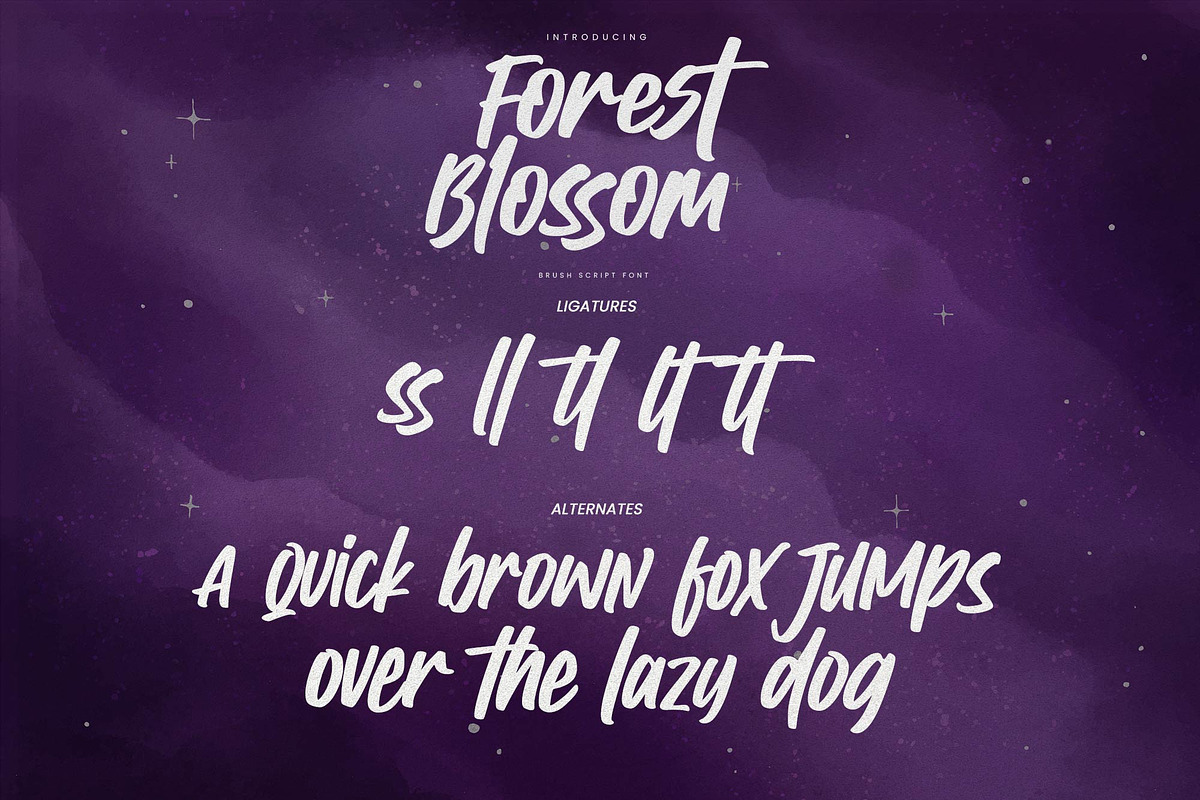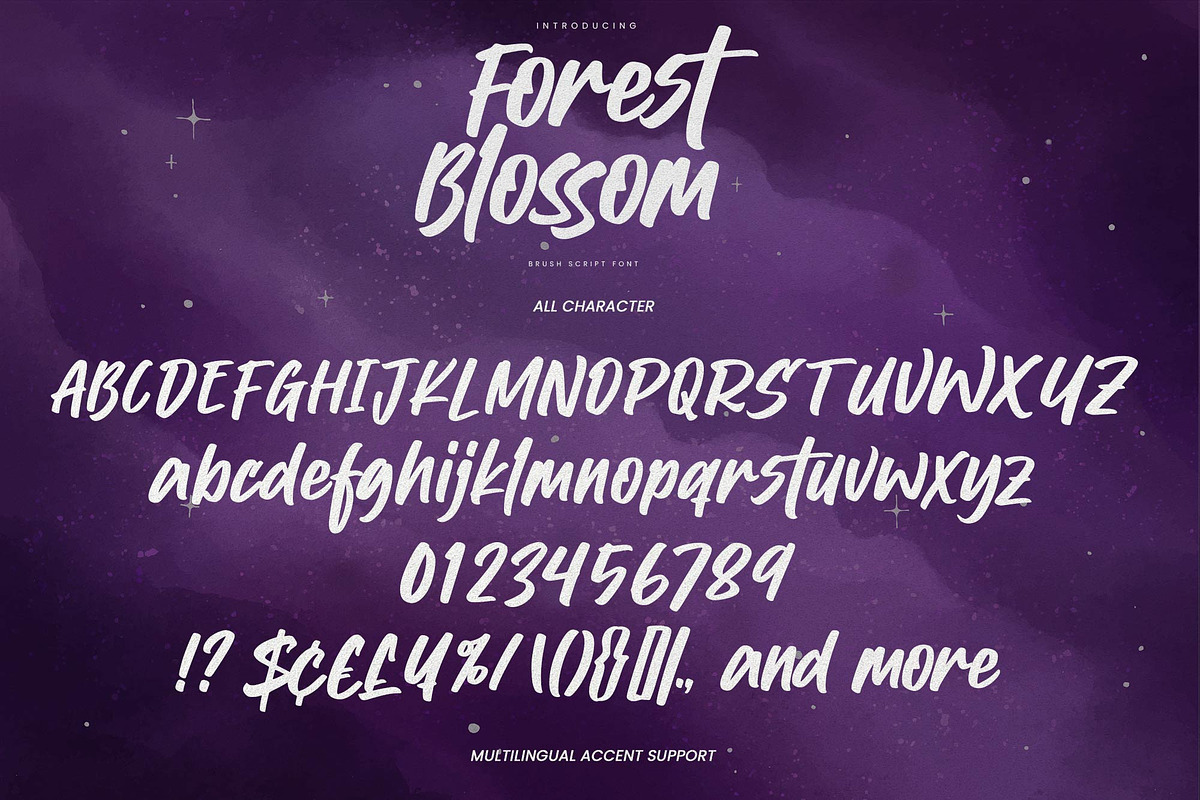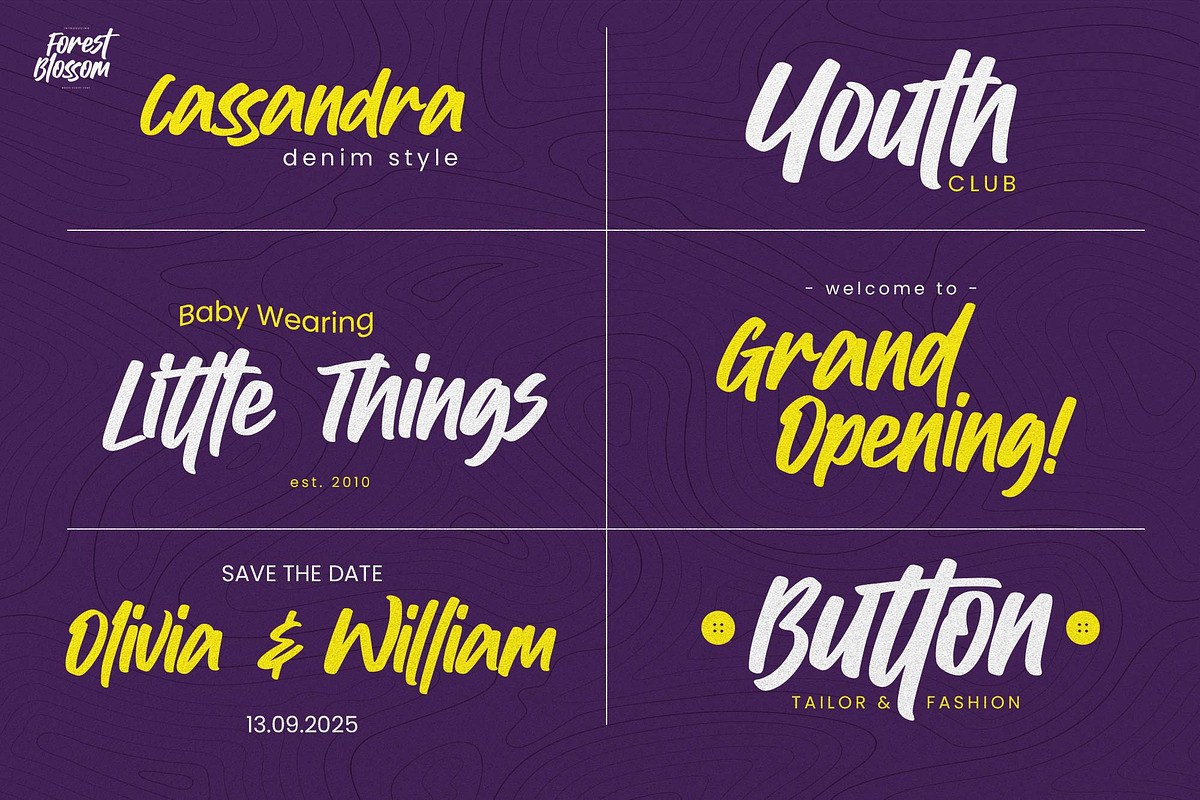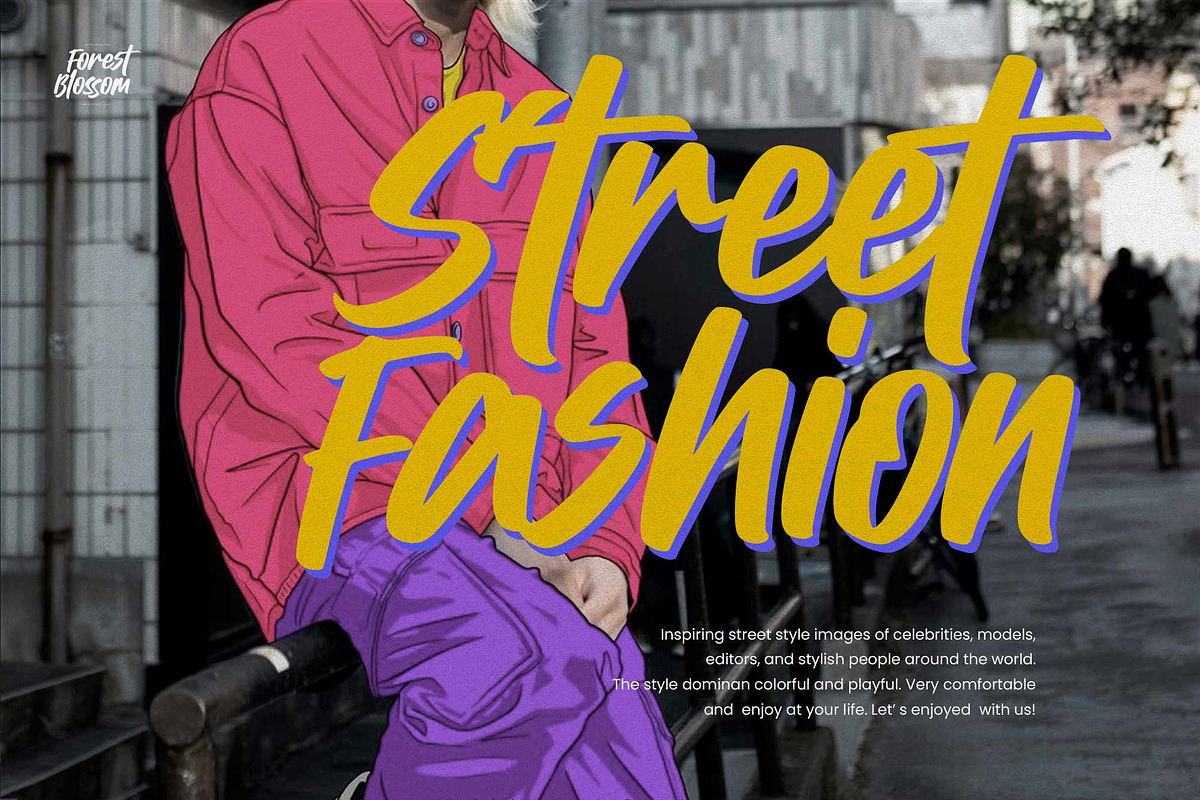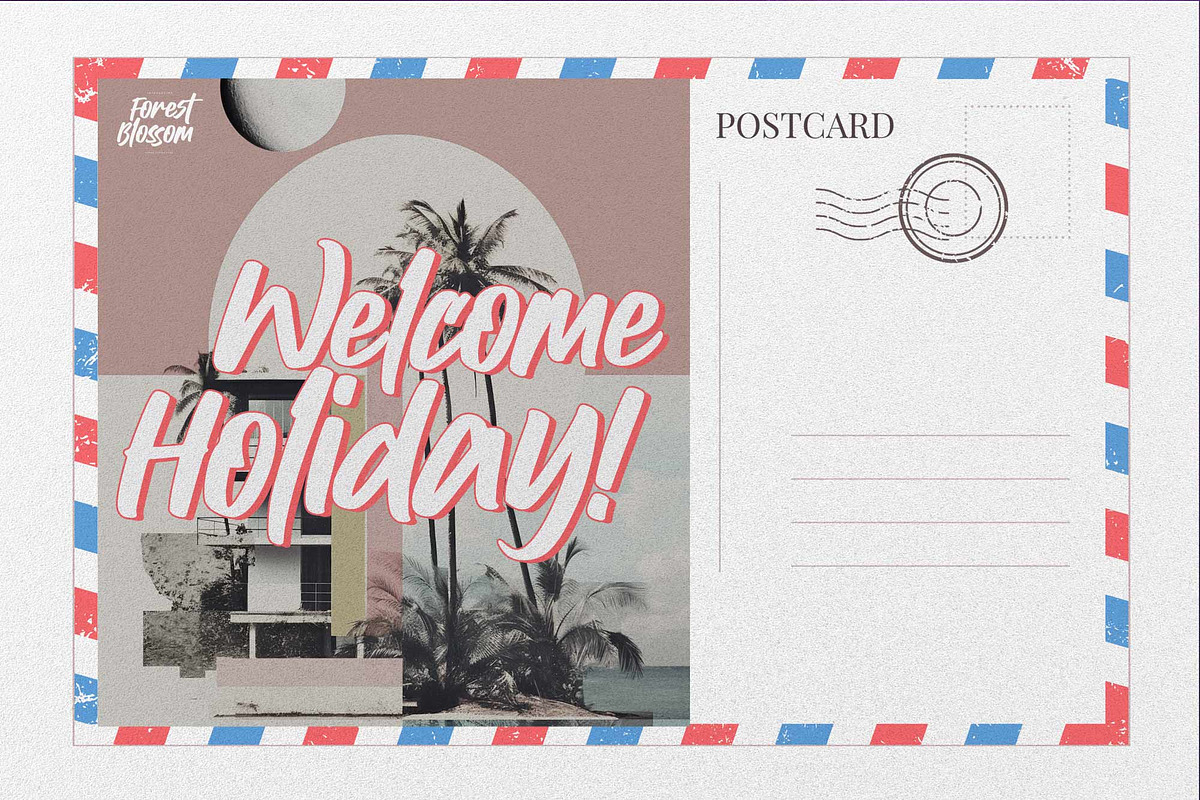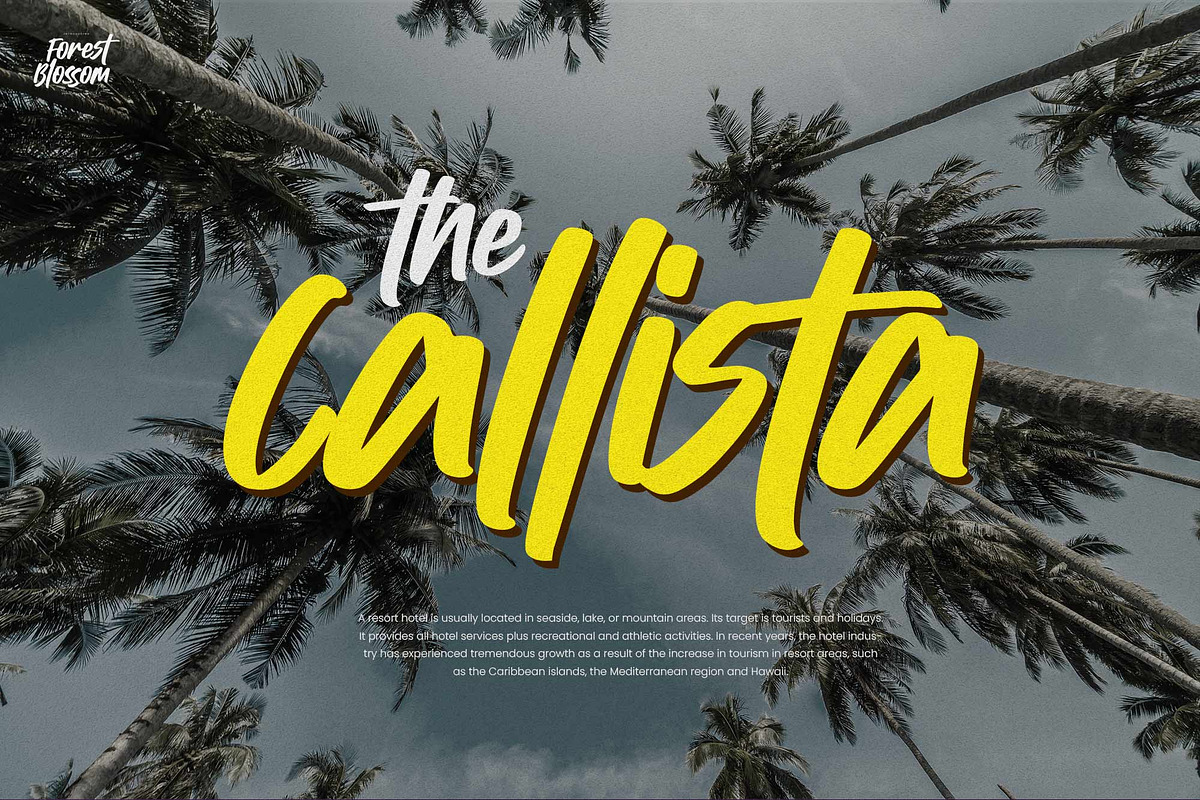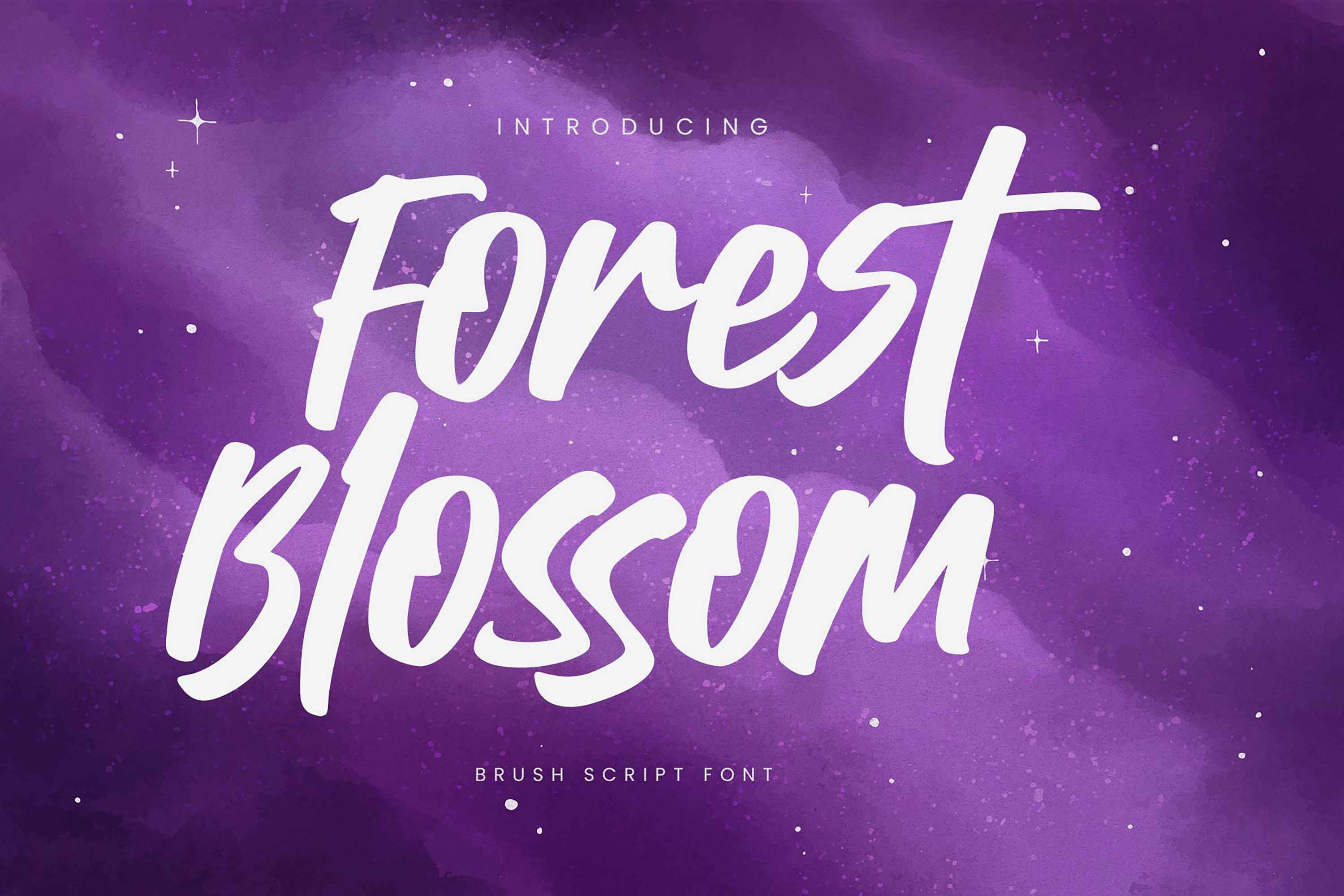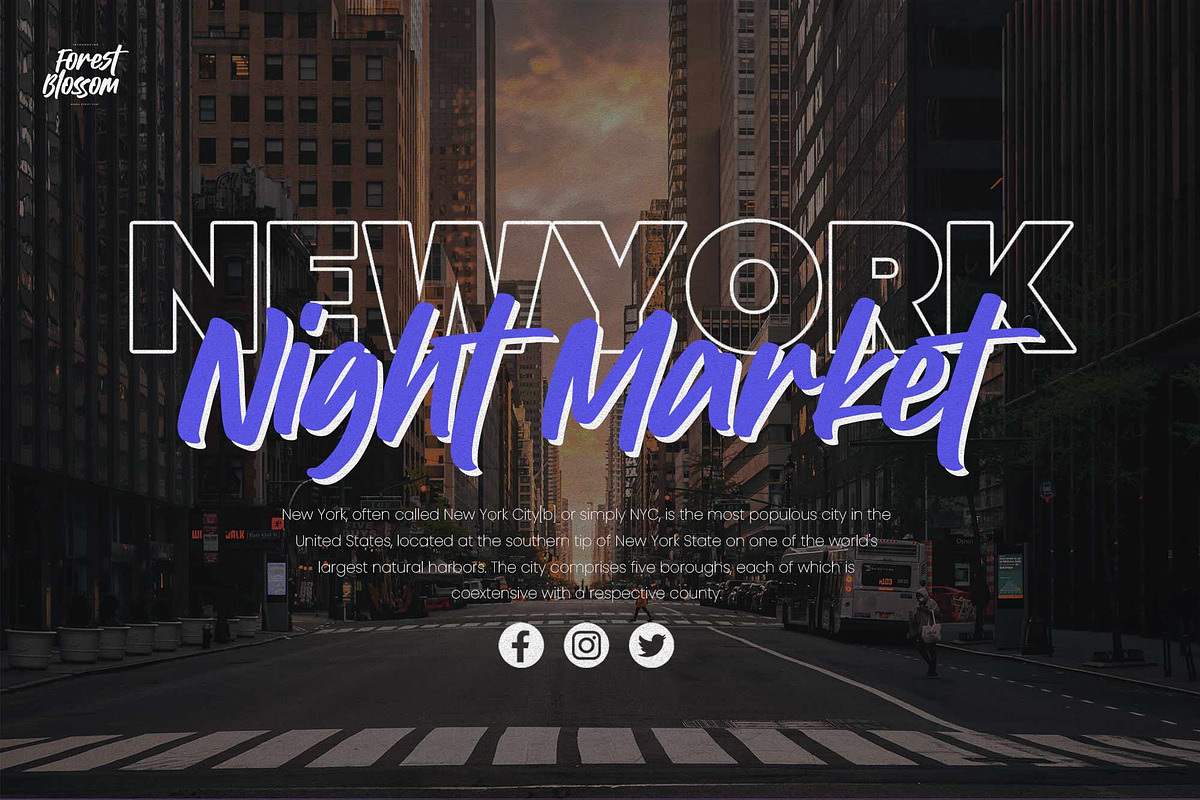
Forrest Blossom – Quick Brush Font
Hello Everyone, introduce our new product Font Forrest Blossom This Is Quick Brush Font.This is a Natural Style and classy style with a clear style and dramatic movement. This font Forrest Blossom is great for your next creative project such as logos, printed quotes, invitations, cards, product packaging, headers, Logotype, Letterhead, Poster, Design this font is great for your creative projects such as watermark on photography, and perfect for logos & branding, invitation, advertisements, product designs, stationery, wedding designs,label ,product packaging, special events or anything that need handwritting taste. That is has charming, authentic and relaxed characteristic more natural look to your text.
Standard glyphs
Ligatures glyphs
Alternates glyphs